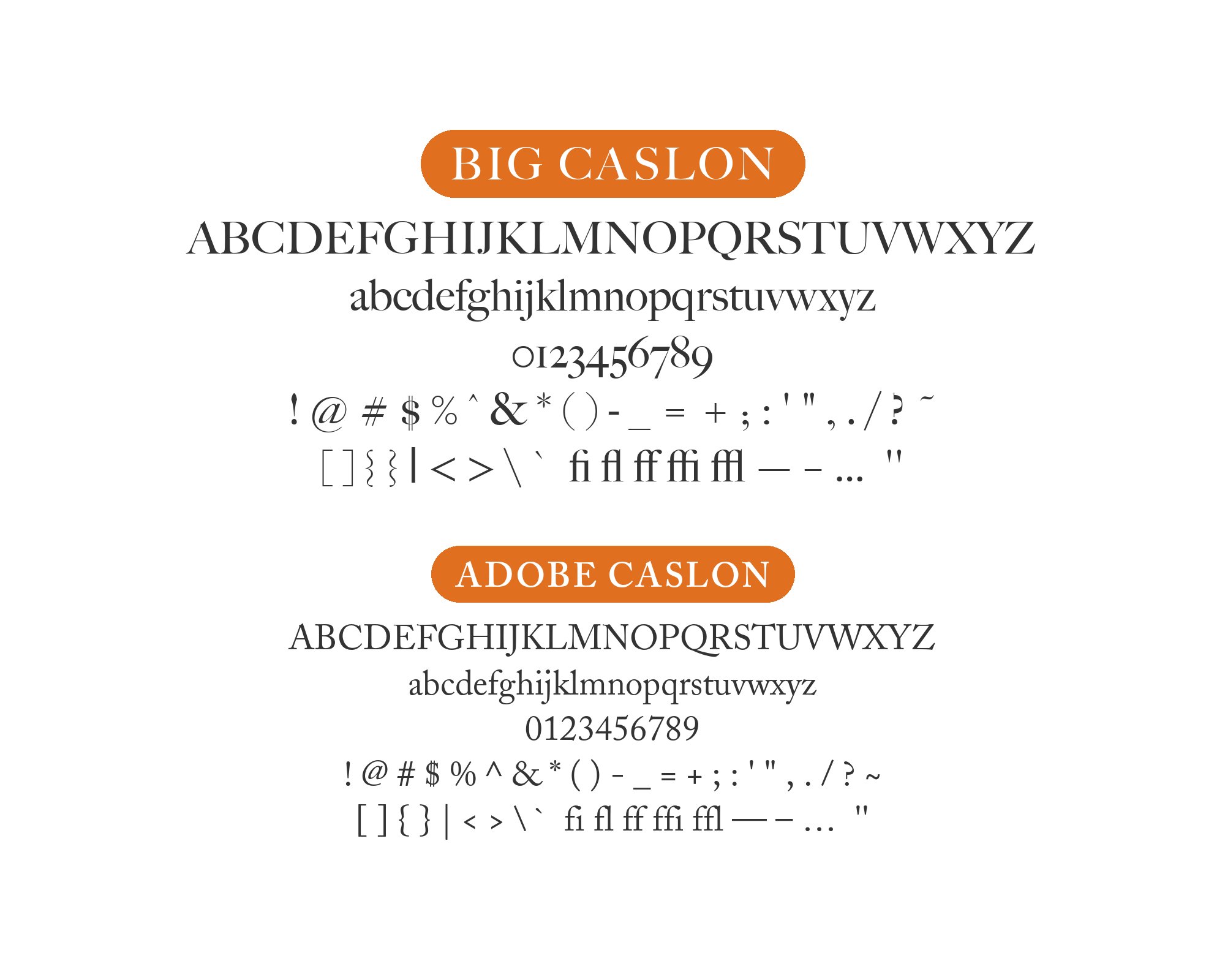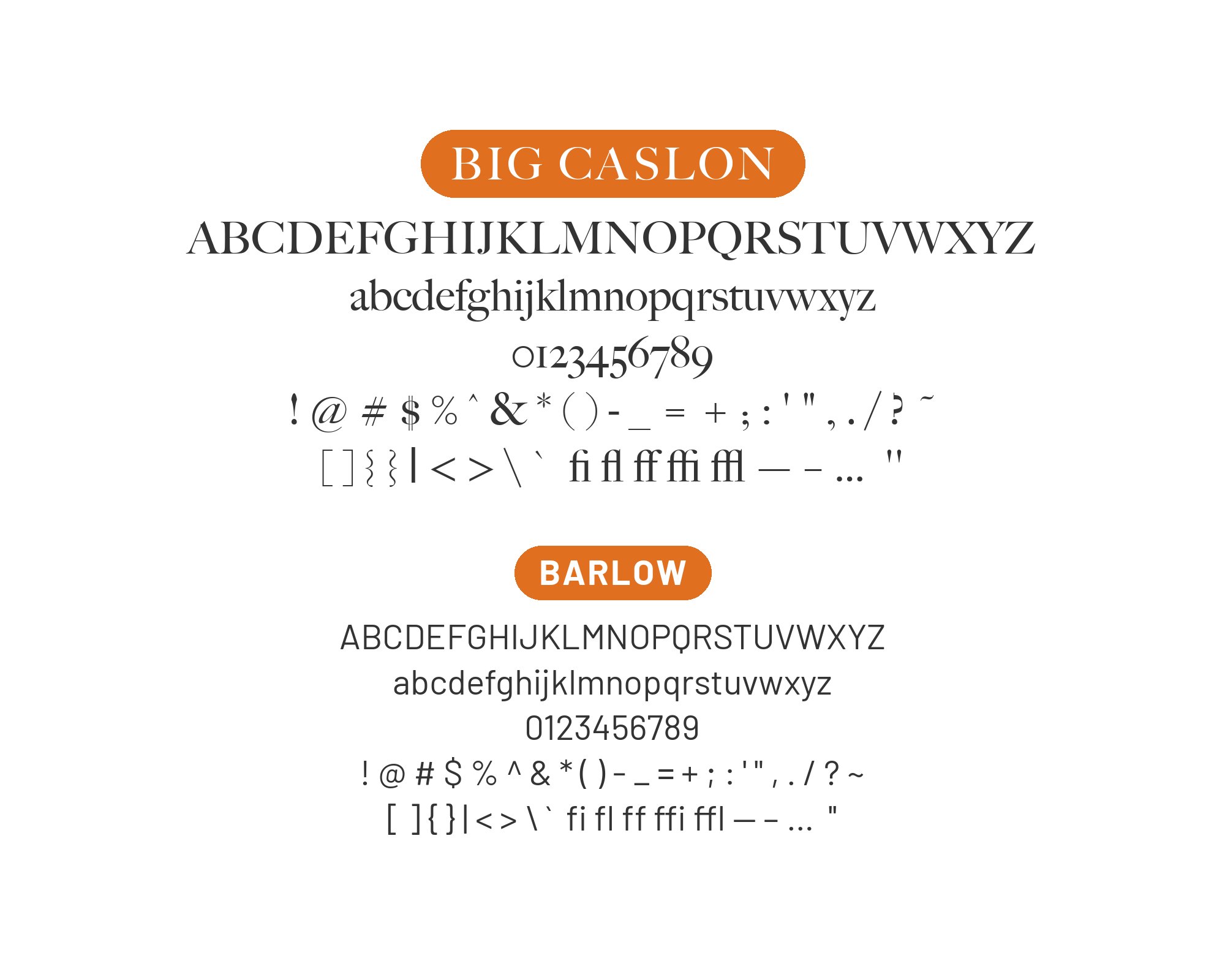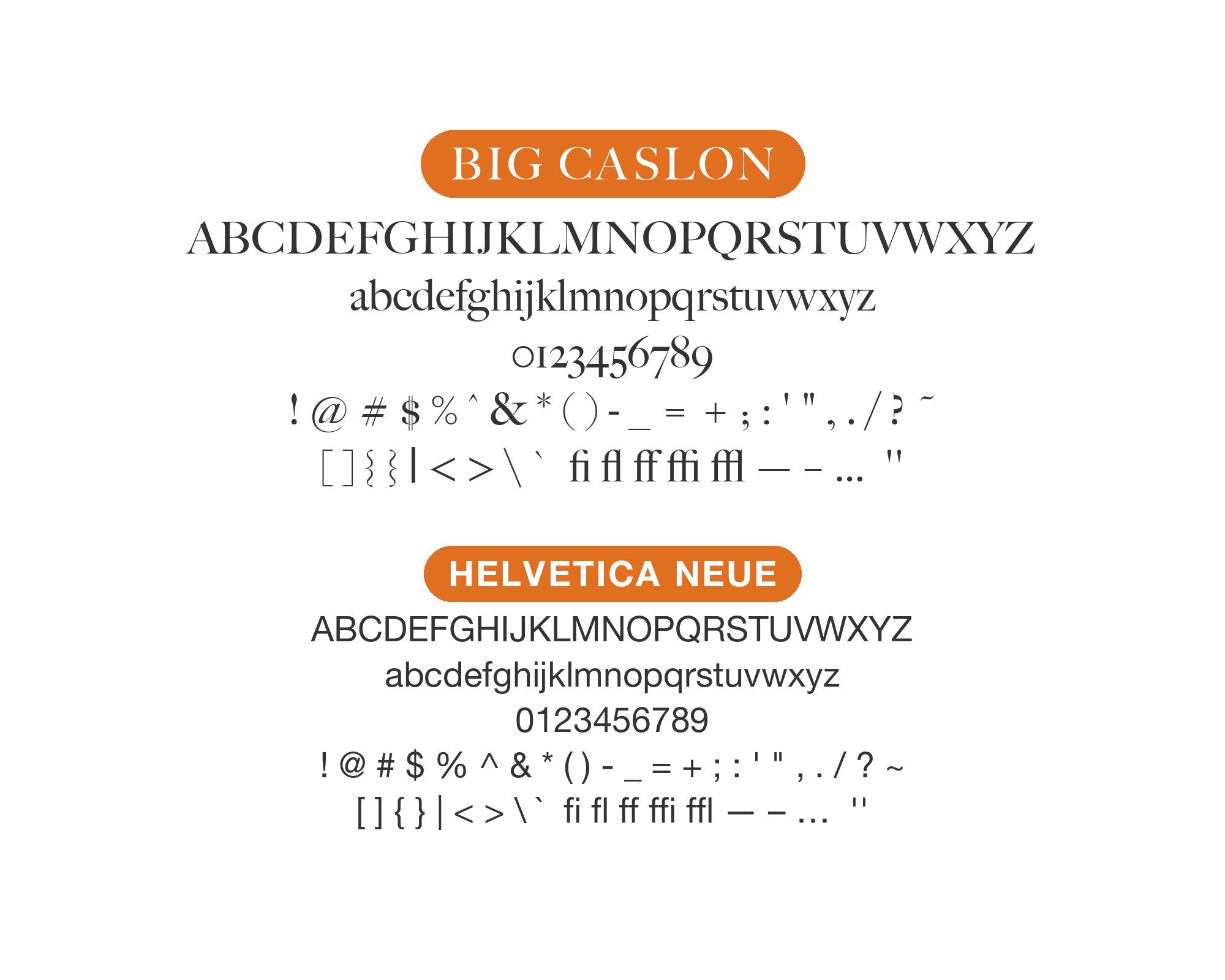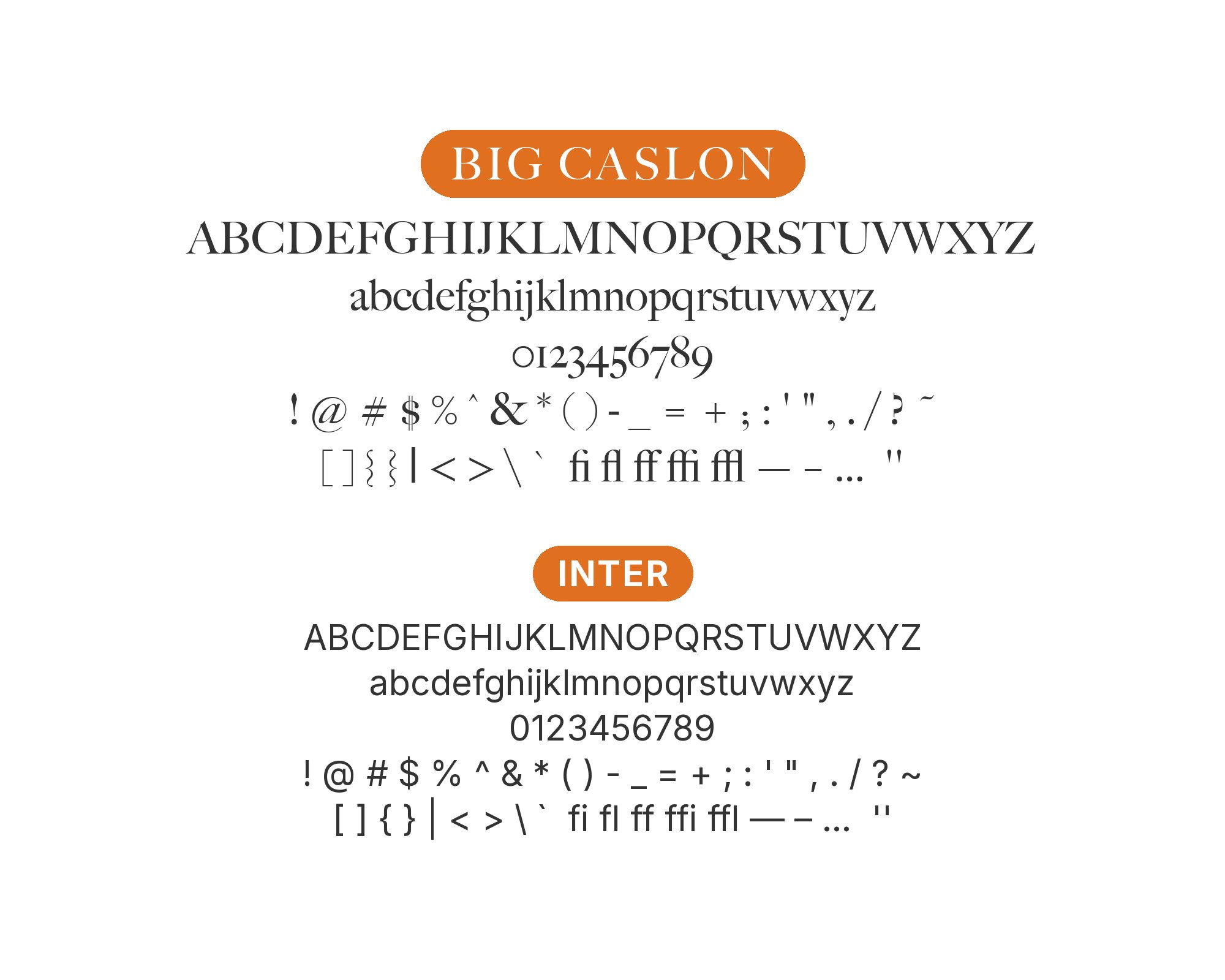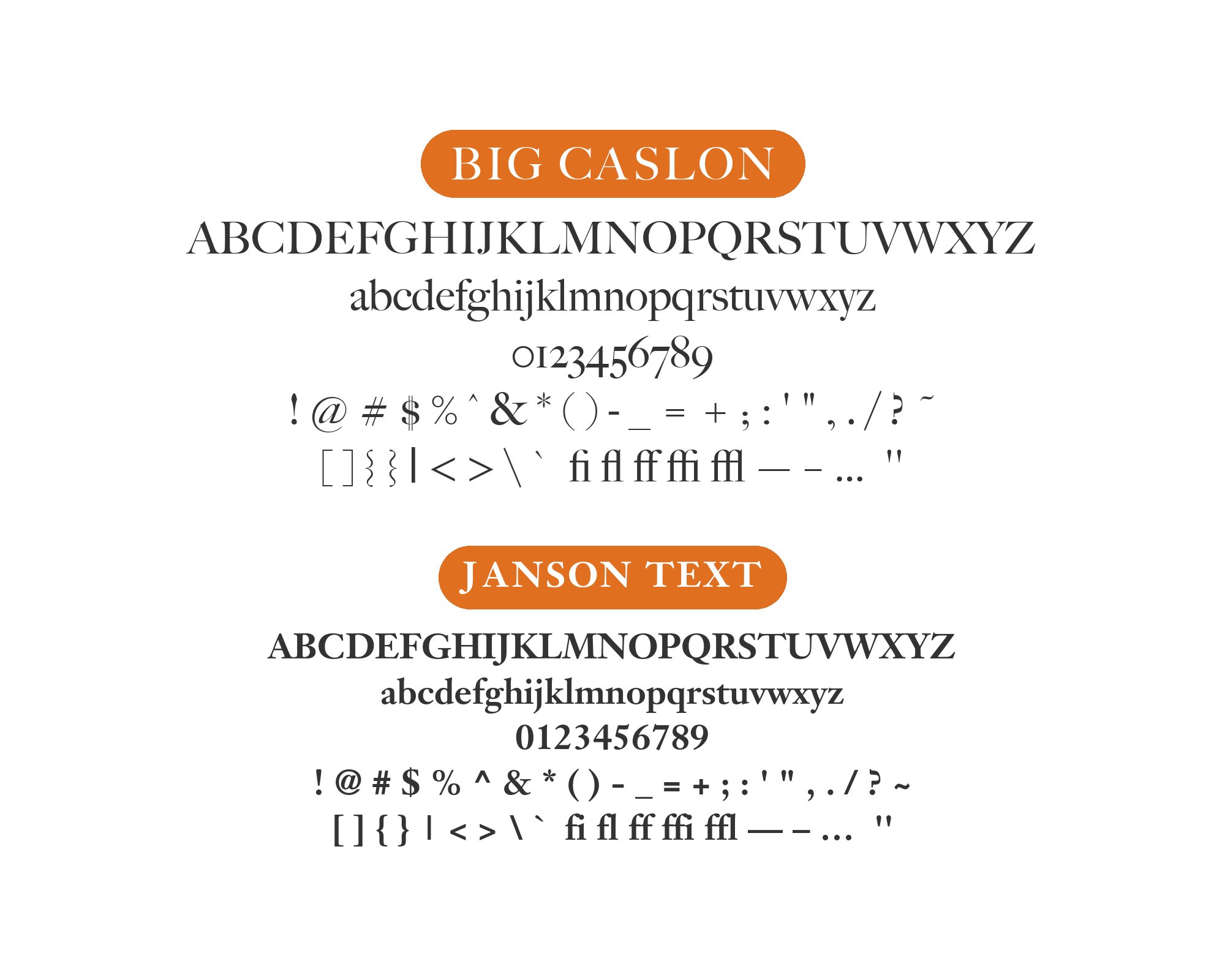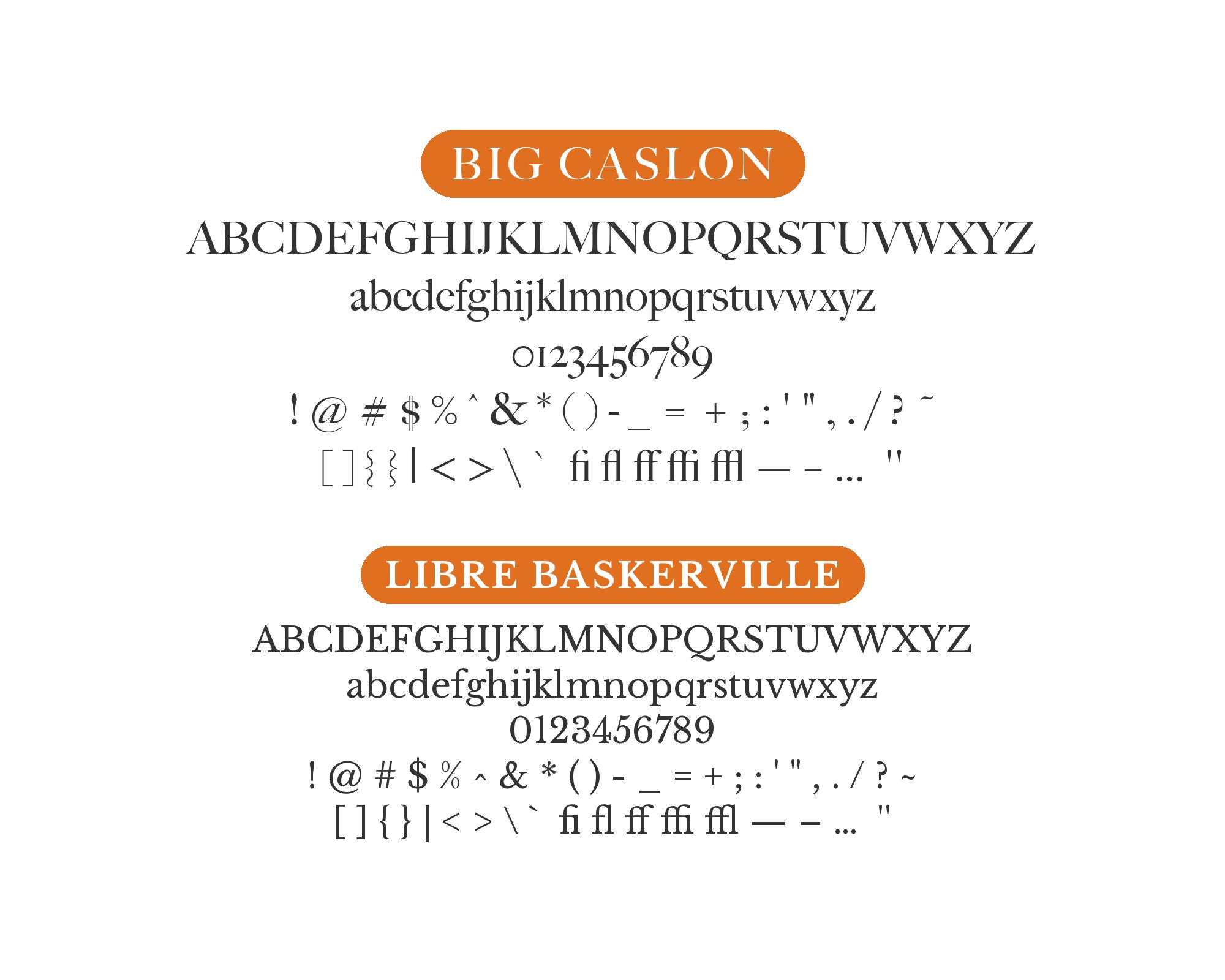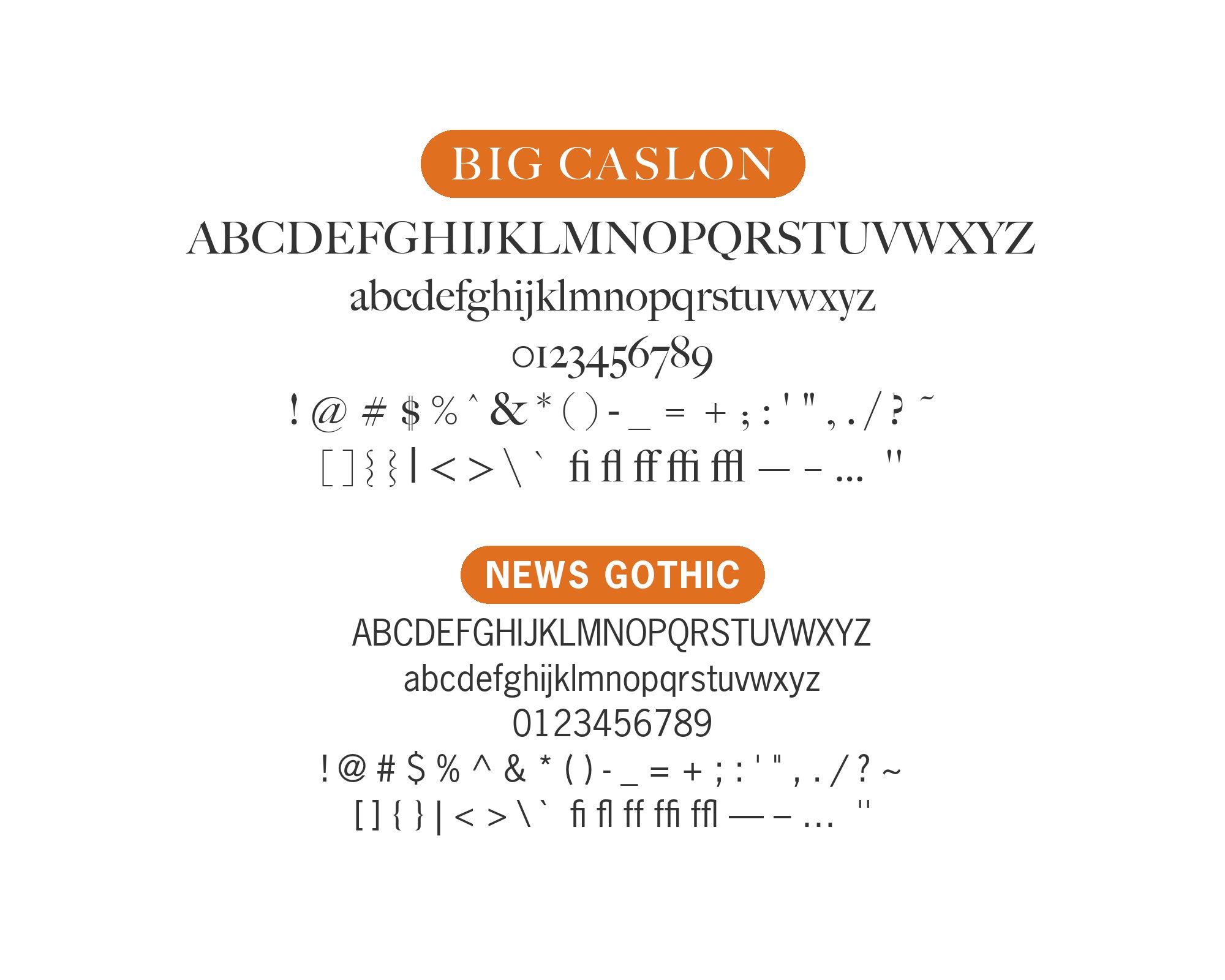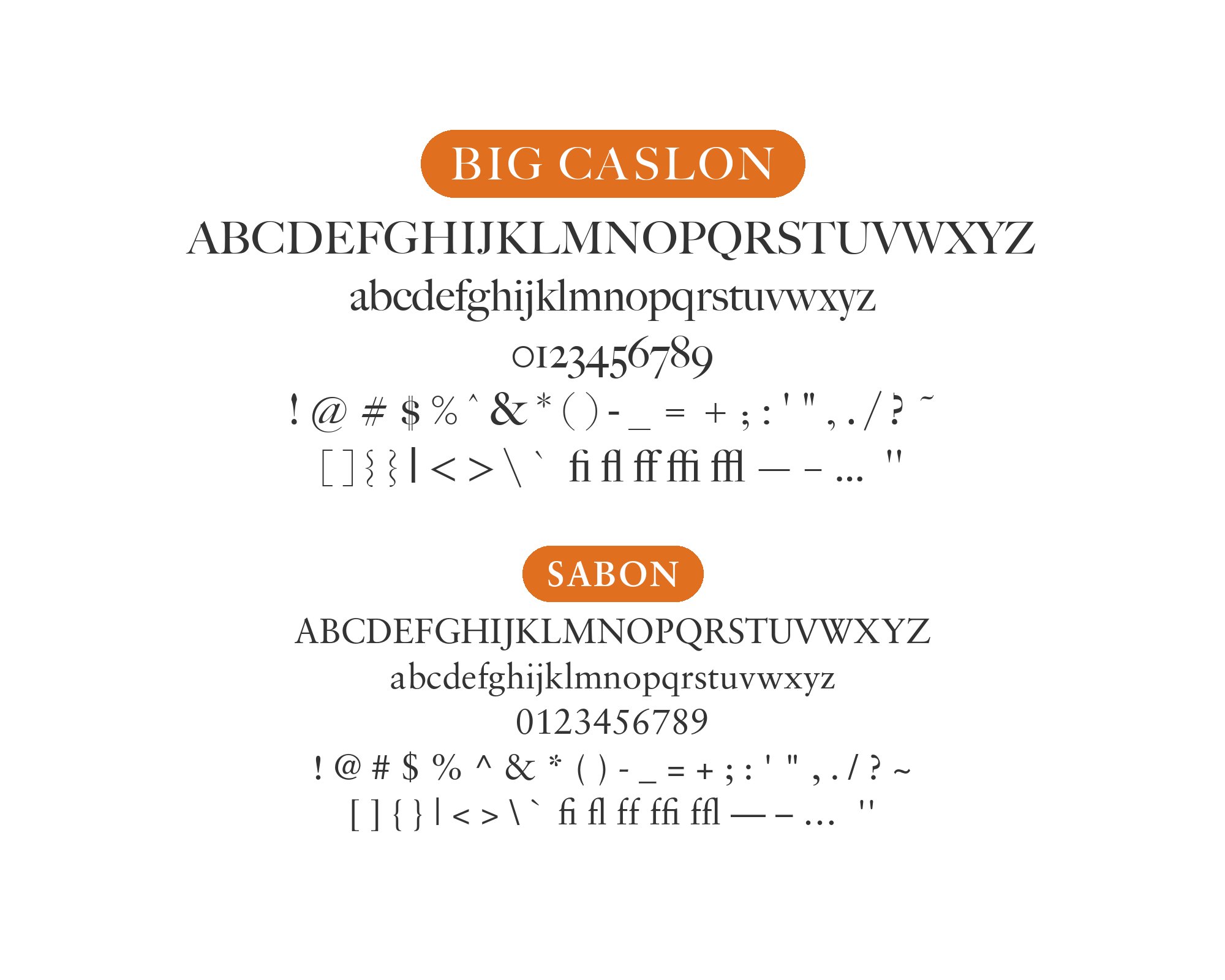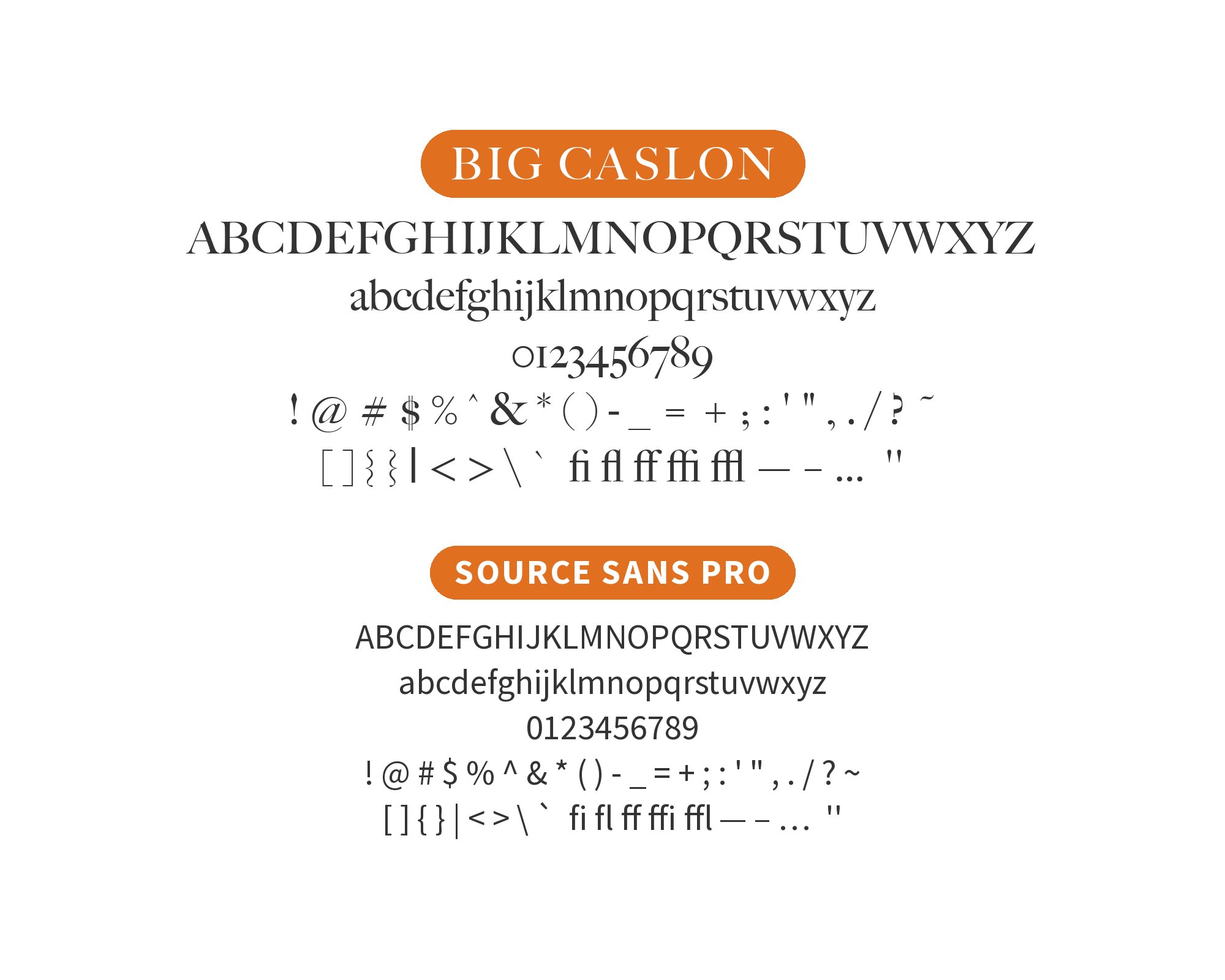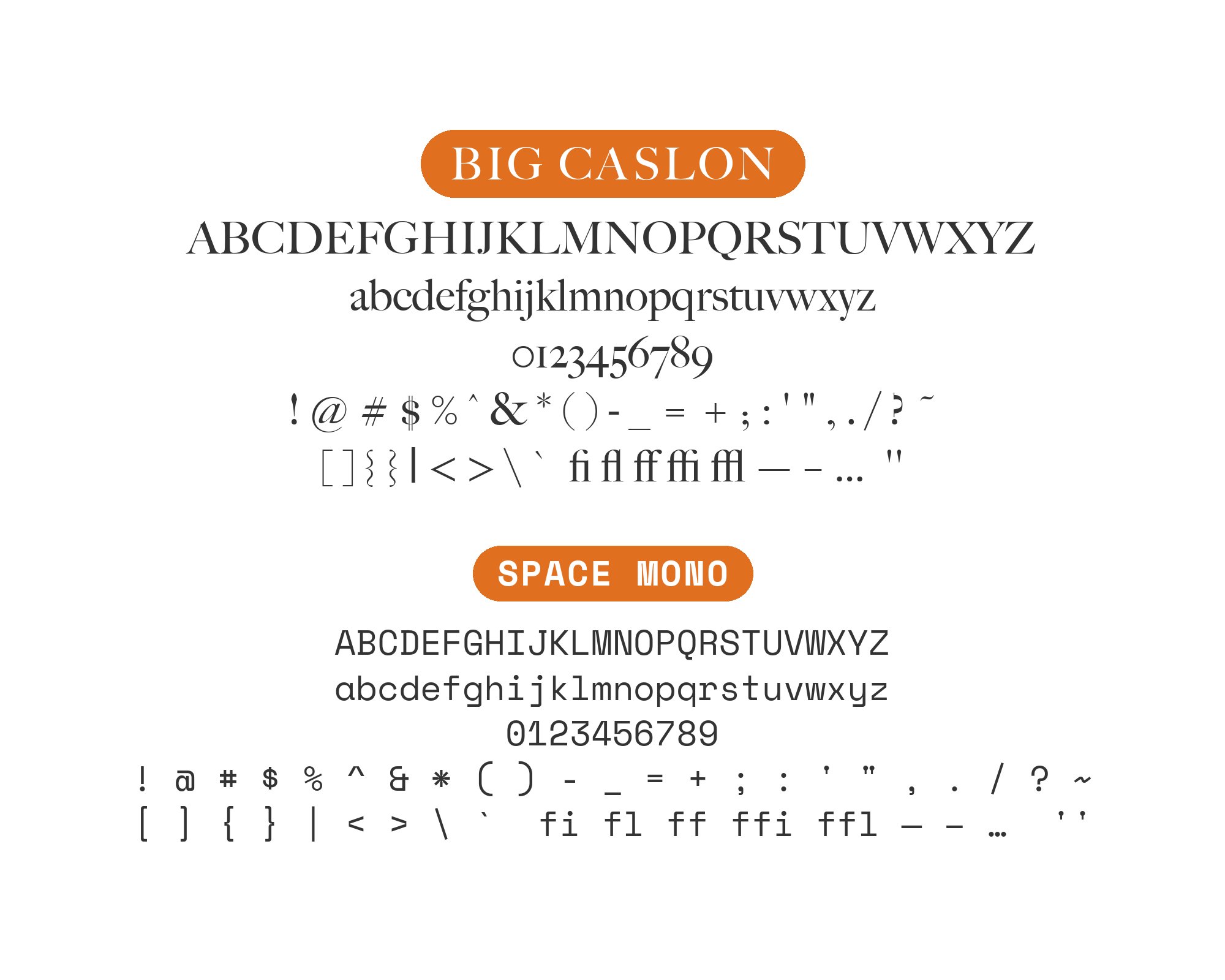
Big Caslon pairs great with Helvetica Neue, Univers and Adobe Caslon. All 15 pairings are shown below in real rendered specimens, with the reason each one works.
What fonts go with Big Caslon? Start from the size the letters were drawn for. This is a display Caslon, with dramatic stroke contrast that collapses if you ask it to set a paragraph, so the partner’s job is almost always the reading, the navigation, or the data sitting underneath a short, forceful title.
Matthew Carter designed Big Caslon and Font Bureau released it in 1994 as the first digital version of Caslon’s display sizes. William Caslon’s familiar text types are even and bookish; the three largest foundry sizes are a different design, with sharp thick-thin transitions that Carter described as a touch eccentric. Adobe Fonts now ships Regular, Bold, and Black with italics. Typewolf puts the floor at 18 point; Carter & Cone’s own note says 30 point and above. Hairlines that look elegant on a poster vanish in a caption, and the serifs need room to read as serifs rather than as noise.
The useful pairing move is an optical-size split, not a second decorative voice. A text Caslon such as Adobe Caslon, or an old-style book face such as Sabon or Janson Text, keeps the historical register while taking the paragraph. A low-contrast grotesque — Helvetica Neue, Univers, News Gothic, Source Sans Pro, Barlow — takes labels and interface copy. Avenir and Libre Baskerville sit between those poles. Co-usage in published projects shows that these families have appeared in the same system; it does not prove every arrangement will work. Here are 15 fonts that pair with Big Caslon.
1. Helvetica Neue
Helvetica Neue is Linotype’s 1983 reworking of Max Miedinger’s Helvetica, unifying heights and widths and making the punctuation heavier. That even grotesque is what Big Caslon withholds: Carter’s display serifs change stroke weight inside a single letter, while Helvetica Neue stays close to a single thickness across the alphabet. Typewolf records both on Michael Boswell’s site, alongside Neue Haas Grotesk. Give Helvetica Neue the deck, the running footer, and any line that must survive at 11 or 12 point. Keep Big Caslon large and brief above it. If you match the two at one size, the Caslon looks over-inked and the grotesque looks timid; a two-step size gap and a lighter sans weight usually settle the page faster than thickening the serif.
Adrian Frutiger designed Univers for Deberny & Peignot, releasing it in 1957 as a planned grotesque system rather than a single advertising cut. Its numbered widths and weights are mechanically even beside Big Caslon’s irregular display contrast, which is why the pairing reads as structure under ornament. Fonts In Use describes the Stillmade furniture studio site as running FB Big Caslon through the main reading and reserving all-caps Univers for navigation, headings, and measurements. That role split is worth copying: all-caps Univers for the short organizational words, Big Caslon for the phrase that has to feel made rather than labeled. Watch lining figures in the grotesque against old-style figures in the serif; pick one numeral style per block so prices and dimensions do not look like a font change.
3. Adobe Caslon
Carol Twombly’s Adobe Caslon, released in 1990, is a text revival of William Caslon’s old-style types, with bracketed serifs and a reading rhythm Big Caslon was never asked to provide. The two share a historical name and little else at working size: one is built for books, the other for display. Fonts In Use lists both on Inigo, the historic-homes estate identity. Use Adobe Caslon for paragraphs, captions, and anything longer than a headline, and keep Big Caslon for the nameplate or a single pull line. Their x-heights will not coincide. Size the text face independently, and resist the urge to “match” the display by pushing Adobe Caslon into a poster weight; the contrast that makes Big Caslon work at 36 point is a defect at 10.
4. Sabon
Jan Tschichold designed Sabon between 1964 and 1967, and Linotype, Monotype, and Stempel released the old-style serif in 1967, drawing the roman from Garamond types associated with Jacques Sabon. That literary, moderately contrasted texture is cooler than Big Caslon’s display Caslon, which is the point of putting them on one magazine page. Fonts In Use lists both in Sunday Paper Issue 01, a print project that also uses Times New Roman. Let Sabon carry the article and Big Caslon the issue title or a section opener. Sabon’s smaller apparent lowercase will look timid next to Caslon display caps unless you add a point or two to the text size; keep the display line short enough that its hairlines still hold on uncoated stock.
5. Times New Roman
Stanley Morison directed Times New Roman for The Times, with Victor Lardent drawing the letters; it debuted in the paper in October 1932 and went on commercial sale a year later as a narrow news serif. Its economy is useful under Big Caslon because the display face is wide, high-contrast, and slow on the line. Fonts In Use records both in Sunday Paper Issue 01, and on Uniqlo’s website its logo mixes Times New Roman with a single letter a borrowed from Big Caslon. Assign Times New Roman the captions, tables, and any column that must fit a lot of words; leave Big Caslon on the display word where its serifs have air. A shared nominal size will make the news face look smaller and darker. Track the Caslon title open slightly rather than tightening Times to “match” it.
6. Avenir
Adrian Frutiger drew Avenir in 1987 and Linotype released the geometric sans in 1988, naming it for the French word for future. Circular bowls and measured contrast give it a contemporary calm that Big Caslon’s old-style display serifs do not have. Fonts In Use lists both in Garden & Gun magazine, a production that also uses other display serifs in the same issue. Use Avenir for decks, department labels, and web navigation; keep Big Caslon for the feature title. Geometric sans capitals can look toy-like next to Caslon’s irregular display caps if both sit at display size, so keep Avenir a step smaller and a step lighter. Do not substitute Avenir Next here: the magazine evidence names Avenir. If a digital cut of Avenir Next is all you have installed, treat that as a different pairing and test it as such rather than assuming the magazine’s Avenir will match.
7. Source Sans Pro
Adobe published Source Sans Pro from Paul D. Hunt as an open-source grotesque with American-gothic bones and a few humanist details, including the tailed lowercase l, and slightly condensed widths meant for interfaces. That job is the opposite of Big Caslon’s. Typewolf records the two on Chinatown Journal, with Freight Text also on the page. Put Source Sans Pro on menus, forms, and any line that must remain legible at UI sizes; keep Big Caslon off the screen’s smallest type. The sans will look large next to Caslon’s display lowercase because of x-height, so a caption in Source Sans Pro may need to sit smaller than instinct suggests. Test a heading, a nav row, and a paragraph as one block before adding a third family.
“My clients will build their own sites with their own AI.”
How are you supposed to navigate this?
Find Out How8. News Gothic
American Type Founders issued News Gothic in 1908 from Morris Fuller Benton’s drawings, a compact gothic with open letterforms and a newsroom density Big Caslon never attempts. Fonts In Use lists Big Caslon with News Gothic and Nitti Typewriter on Taylor Swift’s The Tortured Poets Department album art and website. The gothic is the campaign’s small-type workhorse: credits, dates, legal lines, and anything that must pack into a margin. Keep Big Caslon on the title where its contrast can operate at poster size. News Gothic at a heavy weight will fight the serif’s dark strokes if the two sit on one baseline; leave space, and do not italicize the gothic to mimic Caslon’s display italic. If the album-style stack feels crowded, drop the gothic a weight rather than shrinking the Caslon until its hairlines disappear.
9. Janson Text
Janson is the trade name for Dutch Baroque old-style types cut by Miklós Kis and for the twentieth-century revivals sold as Janson Text: crisp, relatively dark, and built for books rather than posters. That interior texture is what a Big Caslon cover needs underneath it. Fonts In Use documents John D. Berry’s design for Hayden Carruth’s Scrambled Eggs & Whiskey, with Big Caslon on the cover — including an alternate ampersand in the family — and Janson Text in the project. Use Janson Text for chapters and Big Caslon for the jacket and maybe a half-title. The old-style serif will look small beside Caslon display caps; size the text for the reading measure, not for the cover word, and keep Caslon’s alternate ampersand for the title where Berry used it rather than scattering it through the interior.
10. Space Mono
Colophon Foundry designed Space Mono for Google Design, releasing the fixed-width family with the 2016 Google Fonts relaunch as a monospace-first design that mixes grotesque and geometric cues. Those even advances are a visible change of job next to Big Caslon’s proportional, high-contrast serifs. Typewolf records both on Tom Adam Vitolins’s site, with San Francisco also listed. Keep Space Mono for URLs, codes, captions that should feel technical, or a single credit line. Do not run paragraphs in it under a Caslon title; the grid becomes the page. Because the mono looks large at a given point size, start a step smaller than the serif’s apparent caption size and check lining figures against Caslon old-style numerals. A single mono line under a Caslon title is usually enough; a second mono block starts to look like a terminal dump.
11. Barlow
Jeremy Tribby designed Barlow as a slightly rounded, low-contrast grotesk drawing on California plates and highway signs, published as a superfamily with condensed siblings. The Normal width is an easy web sans under a Caslon headline because it has almost none of Big Caslon’s stroke drama. Typ.io records Barlow with Big Caslon on glaredb.com, a single live sample rather than a magazine system. Use Barlow for body copy and UI on a product or documentation site; keep Big Caslon for the wordmark or a hero line. Rounded grotesk terminals can look casual next to Caslon’s sharp display serifs if you set both large, so hold Barlow in text sizes and let the serif take the one line that needs history.
12. Libre Baskerville
Impallari Type designed Libre Baskerville from ATF’s 1941 Baskerville, raising the x-height, widening the counters, and reducing contrast so the face reads around 16 pixels. That screen-tuned transitional serif can take paragraphs on a commerce or content site that uses Big Caslon only in display. On Uniqlo’s website, Fonts In Use records Libre Baskerville as the text serif, and a single letter a borrowed from Big Caslon in the LifeWear logo. Set Libre Baskerville for descriptions and Big Caslon for seasonal titles. The Baskerville will look larger than Caslon’s display lowercase at the same pixel size; start the body a hair smaller, and do not force Big Caslon into the product grid where its hairlines will break. Uniqlo’s record is a whole site system, so judge the pair on a product block, not on a specimen word.
13. URW Grotesk
Typewolf’s curated recommendation pairs Big Caslon with URW Grotesk. The sans is broad, plainspoken, and low in contrast, which leaves the Caslon’s dramatic thick-thin drawing uncontested. Use Big Caslon for the masthead or a short feature title, then let URW Grotesk carry decks, navigation, and compact body copy. The families differ enough in construction that they do not need exaggerated weight changes to separate. Keep the grotesque regular or medium and preserve space around the display line. This combination fits magazines, galleries, and hospitality brands that want an expressive serif moment anchored by a practical information voice.
14. Neue Haas Grotesk
Typewolf documents Big Caslon with Neue Haas Grotesk on Michael Boswell’s site. The restored Swiss grotesque supplies a controlled text and interface layer beneath Caslon’s large optical drama. Use Neue Haas for navigation, captions, and explanatory copy; reserve Big Caslon for the name, section opener, or brief quotation. Their contrast is strongest when the sans remains neutral in weight and spacing. Avoid forcing Big Caslon into the smaller jobs simply to repeat the identity. The pairing works for portfolios and cultural sites where the display face should feel memorable but the surrounding structure must stay direct and unobtrusive.
15. Inter
Typ.io records Inter and Big Caslon together on Solitario Studio’s site. Inter’s open screen texture and broad range of weights make it a practical support family for a display serif that should remain rare. Set Inter for paragraphs, menus, and buttons, then use Big Caslon for a few large lines where its contrast can open fully. The sans should carry the repeated work; adding Caslon to every card or caption weakens its effect. This pairing is particularly useful for portfolio and commerce interfaces that need reliable small text but still want a distinctive editorial headline rather than another geometric sans.
Big Caslon works when it stays a display voice. Helvetica Neue, Univers, News Gothic, Source Sans Pro, and Barlow take the small, even jobs the serif cannot; Adobe Caslon, Sabon, Janson Text, Times New Roman, and Libre Baskerville take continuous reading in a related or neighboring serif register; Avenir and Space Mono change the supporting texture without asking the Caslon to shrink.
Set a title and a full paragraph before adding a third family. Check hairlines at the smallest intended reproduction, and check numerals in both faces. For more exercises in balancing display serifs against text companions, see The Big Book of Font Combinations. The test is whether Carter’s eccentric display Caslon still reads as the title after the paragraph is set.